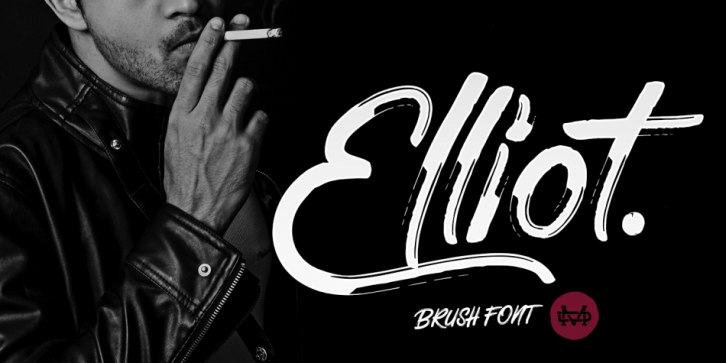
Designed by Suandana Ipandemade, Elliot Brush Font is a brush display, script and dingbat font family. This typeface has two styles and was published by madeDeduk.
Introducing Elliot
Elliot is a bold Brush font. This font perfect for poster design, book covers, merchandise, fashion campaigns, newsletters, branding, advertising, magazines, greeting cards, album covers, and quote designs and more.
- UPPERCASE
- lowercase
- Number & Symbol
- International Glyphs
- Alternative Uppercase
- Alternative lowercase
- Swash